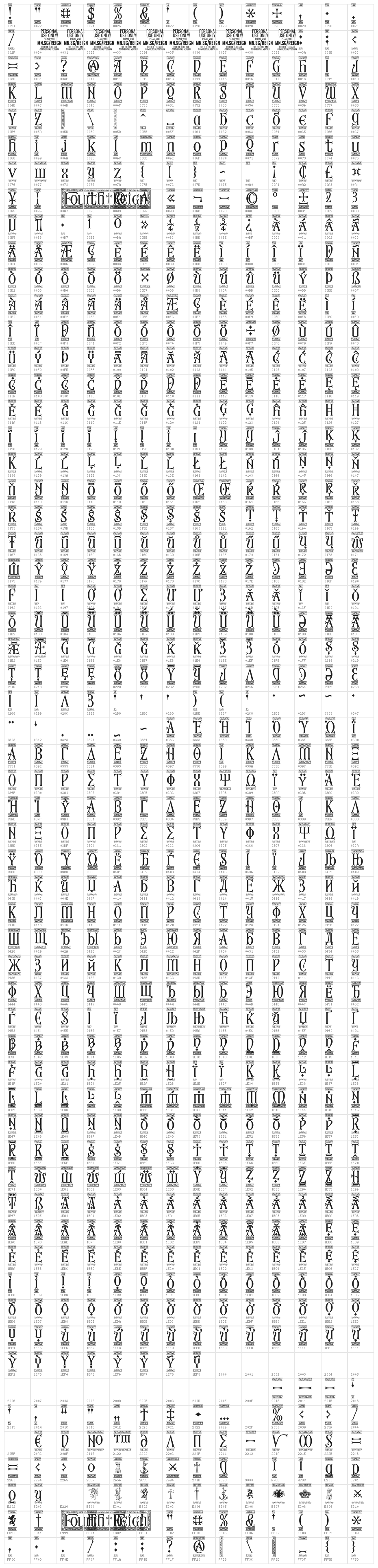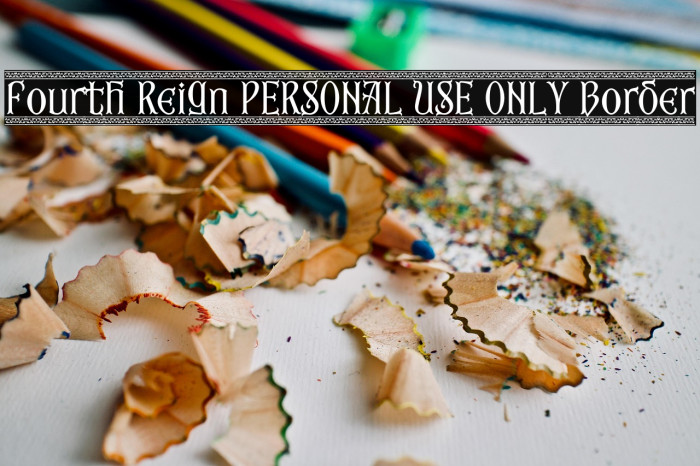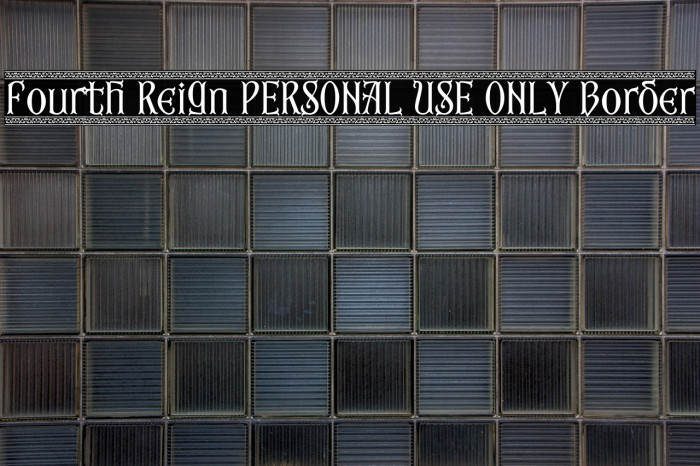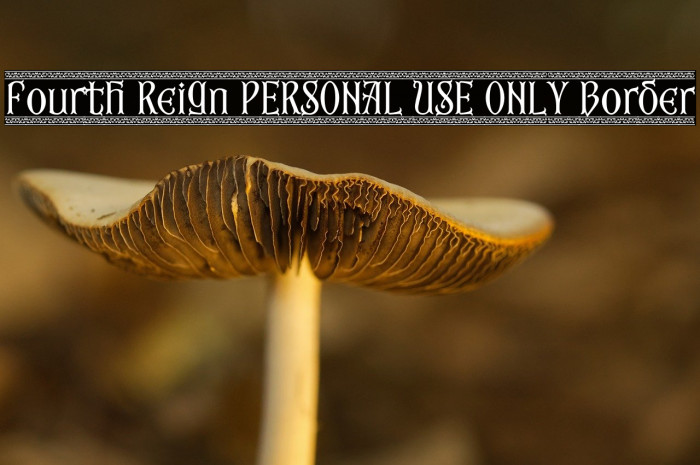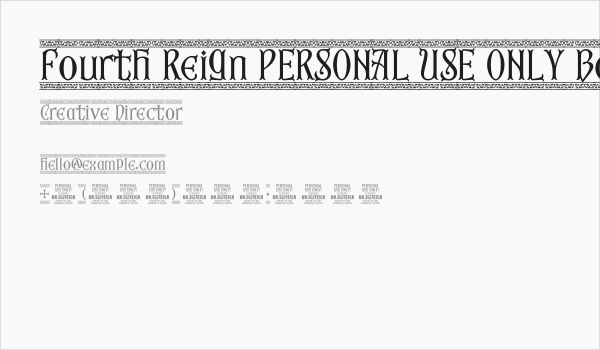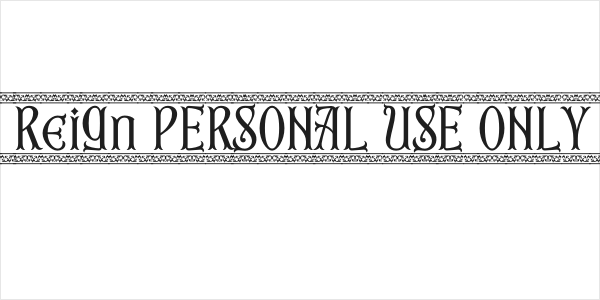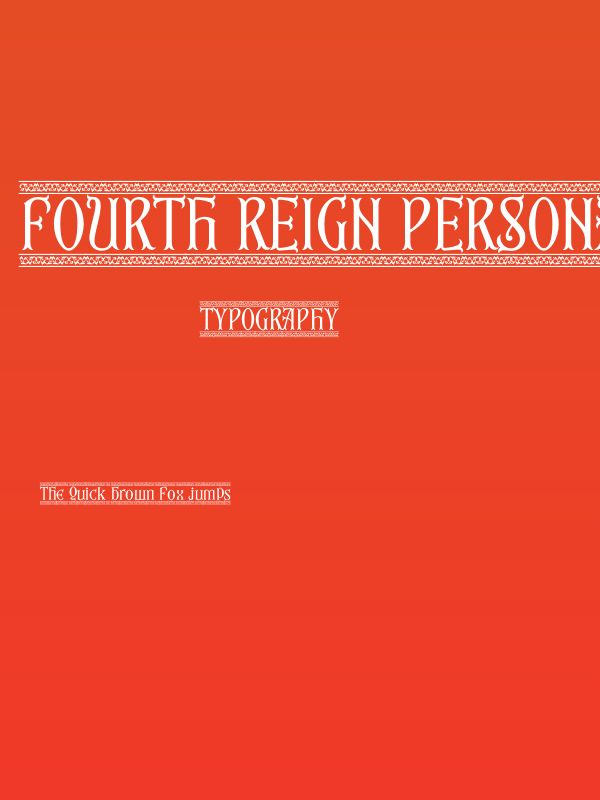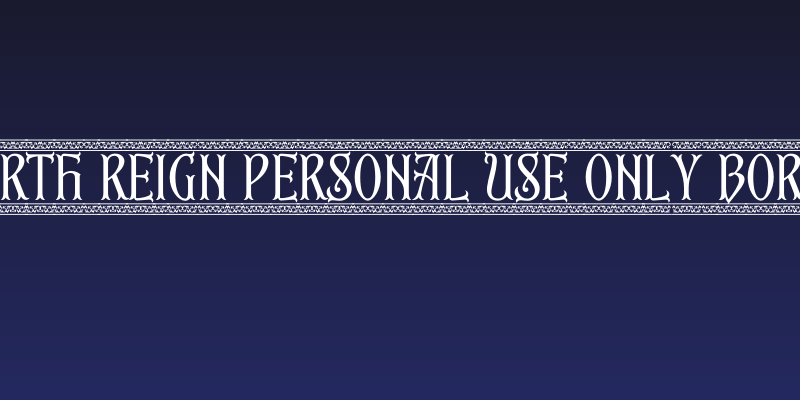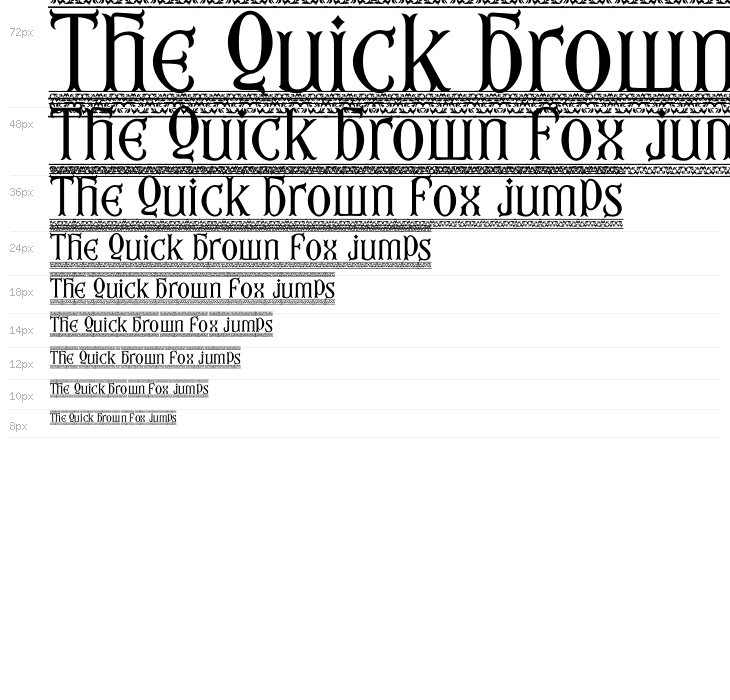
Fourth Reign PERSONAL USE ONLY Border Font
Fourth Reign PERSONAL USE ONLY Border Description
This font features an intricate and decorative style, reminiscent of medieval or gothic script. The uppercase letters are characterized by sharp, angular lines and elaborate flourishes, giving them a regal and commanding presence. The lowercase letters maintain a similar style, with consistent stroke widths and ornate detailing. The numerals and special characters are equally decorative, with unique embellishments that enhance the overall aesthetic. This font is designed to capture attention and convey a sense of historical elegance and sophistication.
| Proposed Projects | Ideal for projects requiring a historical or fantasy theme, such as book covers, posters, or themed event invitations. |